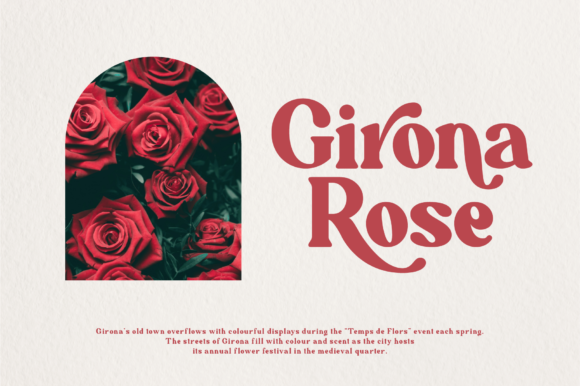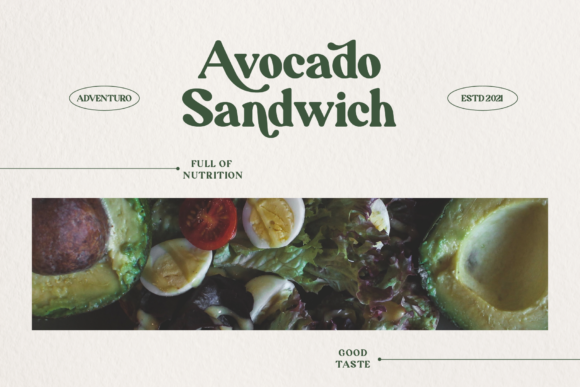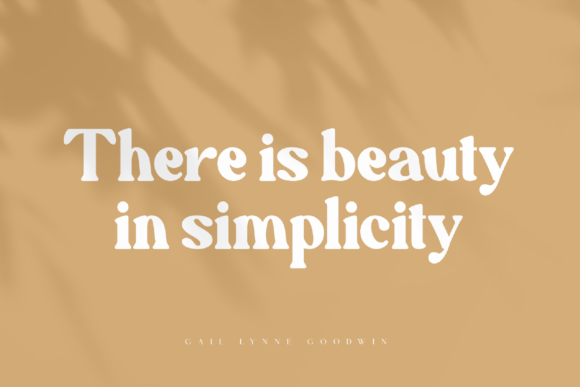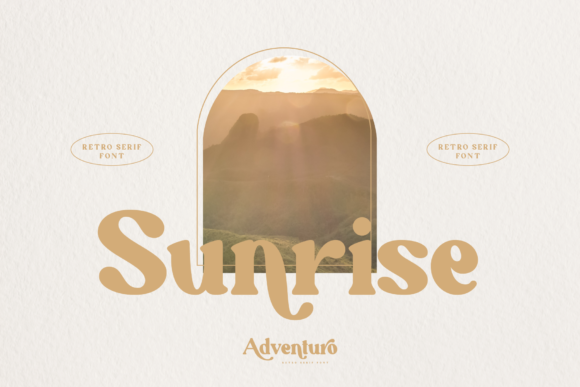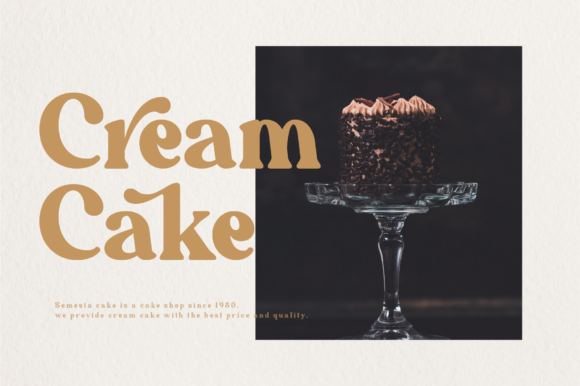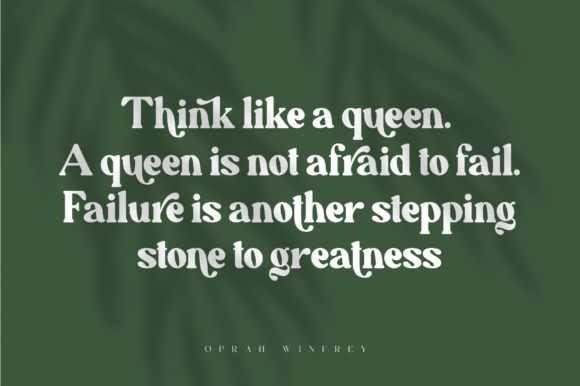
The Perfect Font for Your Next Creative Adventure
Have you ever been working on a design project, pouring your heart and soul into it, only to feel like something is missing? That’s when the magic happens – you stumble upon the perfect font that brings your vision to life. For designers, finding the right font can be the difference between a good design and a great one.
Enter the Adventuro Font, a cool and retro styled serif font that’s designed to add a touch of sophistication to your creations. With its PUA encoding, accessing all glyphs and swashes is a breeze, giving you endless possibilities to experiment and express yourself. Whether you’re a seasoned designer or just starting out, the Adventuro Font is a valuable addition to your toolkit, waiting to elevate your designs to the next level.
Key Features of Adventuro Font
- Unique Characteristics: Adventuro Font features a unique blend of handwritten and modern elements, giving it a distinctive and adventurous feel.
Adventuro Font Review
I recently had the chance to work with the Adventuro Font, and I have to say, it’s a unique and interesting addition to any design project. ✨ One of the things that works well is the adventurous, bold feel it brings to text. The font is perfect for headings and titles, adding a sense of excitement and energy to any design.
Another aspect that I appreciate is the wide range of weights and styles available. This allows designers to choose the perfect version of the font to suit their needs, from light and delicate to bold and dramatic. ✨ The font also includes a range of international characters, making it a great option for global brands and websites.
- ⚠️ The font can be a bit challenging to read at smaller font sizes, especially in body text.
- ⚠️ Some of the weights and styles can feel a bit inconsistent, which may require some adjustments to the design.
Overall, I think the Adventuro Font is a great option for designers looking to add a bold and adventurous feel to their projects. While it may have some limitations, the benefits far outweigh the drawbacks. With some careful selection and use, this font can add a real wow factor to any design.
Tips for Getting the Most Out of Adventuro Font
Here are some tips to get the most out of Adventuro Font:
- Combine Adventuro Font with other fonts for a striking contrast.
- Use Adventuro Font for headings and titles to add a touch of adventure to your design.
Here are some common use cases for Adventuro Font:
- Adventure travel brochures and
Alternatives to Adventuro Font
Bebas Neue is a modern sans-serif font designed by Rasmus Andersson. It’s perfect for use in headings and titles where you need to convey a sense of adventure and boldness. Bebas Neue is more geometric and clean compared to Adventuro Font, which makes it suitable for modern and minimalist designs.
Rock Salt
Rock Salt is a distressed font designed by Nick Sherman. It’s ideal for use in projects that require a vintage or retro feel. Rock Salt has a more rugged and worn look compared to Adventuro Font, making it suitable for designs that need to convey a sense of history and nostalgia.